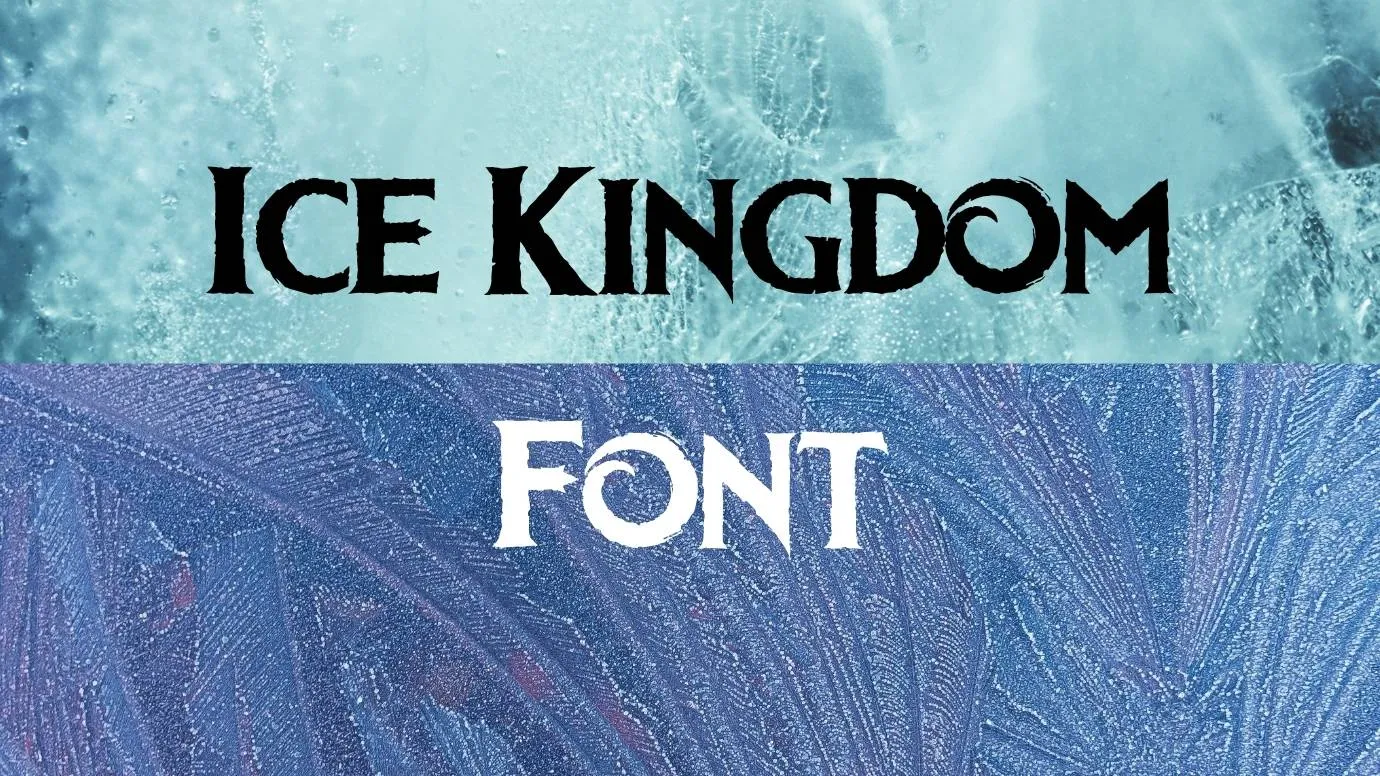
Ice Kingdom Font Family a fresh and contemporary typeface known as the Ice Kingdom Font. Crafted by Kustren, this extraordinary font falls under the category of fancy fonts.
| Name | Ice Kingdom Font |
| Type | Fancy |
| Designer | Kustren |